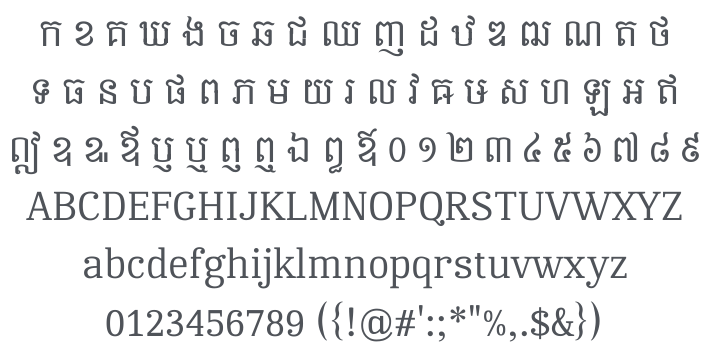
Busra Font Family
About Busra
The Busra font family is the latest version of the popular Khmer Busra font first released as part of the Mondulkiri project. This Khmer font has been improved and updated for a wide range of uses, from print to web, and to support the latest Khmer text encoding best practices.
The family is named after the Bou Sra waterfall in Mondulkiri Province. It supports most of the Cambodian languages written in the Khmer script.